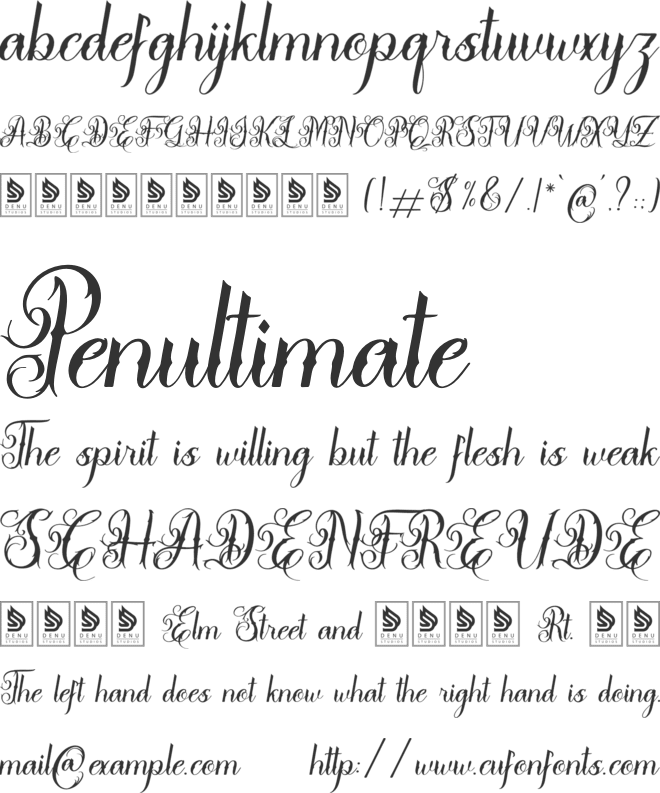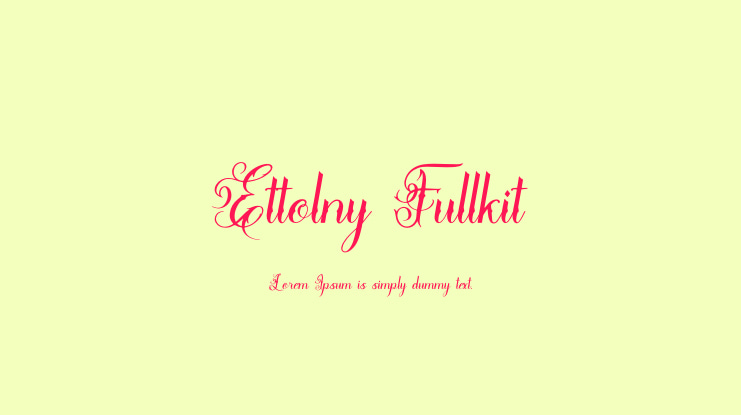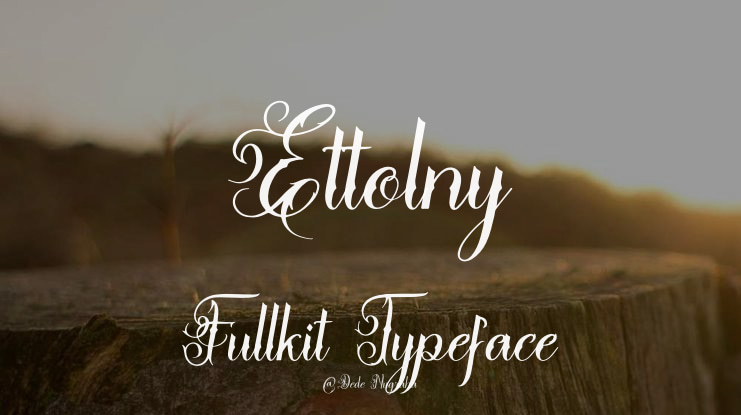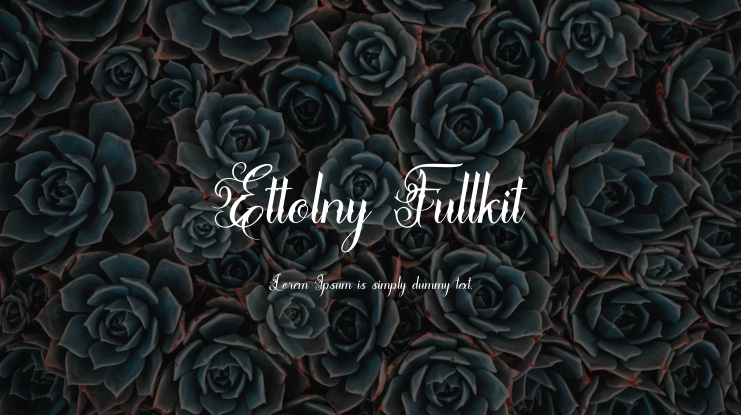
Ettolny Fullkit | Tattoo Script Font is a versatile font suitable for various projects such as logos, branding, homeware designs, packaging, mugs, quotes, posters, apparel, book covers, invitations, photography, special events, and more, that require a touch of Tattoo Script Font style.